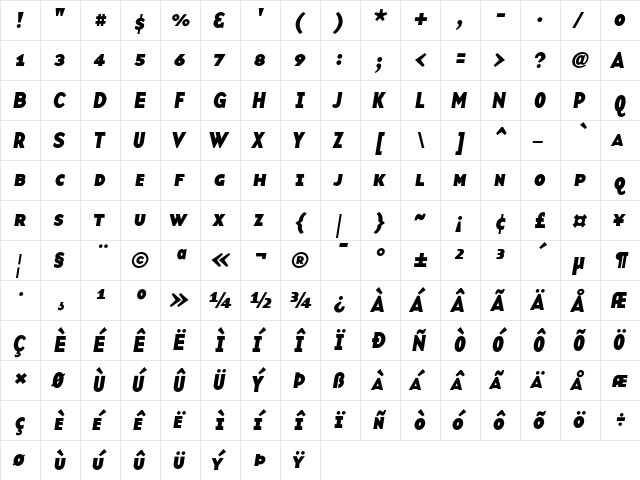
BaseTwelveSansSCBI Roman Font Preview
BaseTwelveSansSCBI Roman
BaseTwelveSansSCBI Roman Font Details
Design Context for BaseTwelveSansSCBI Typeface
BaseTwelveSansSCBI takes a measured approach to typography — its balanced proportions and neutral character make it a reliable workhorse for both digital and print work.